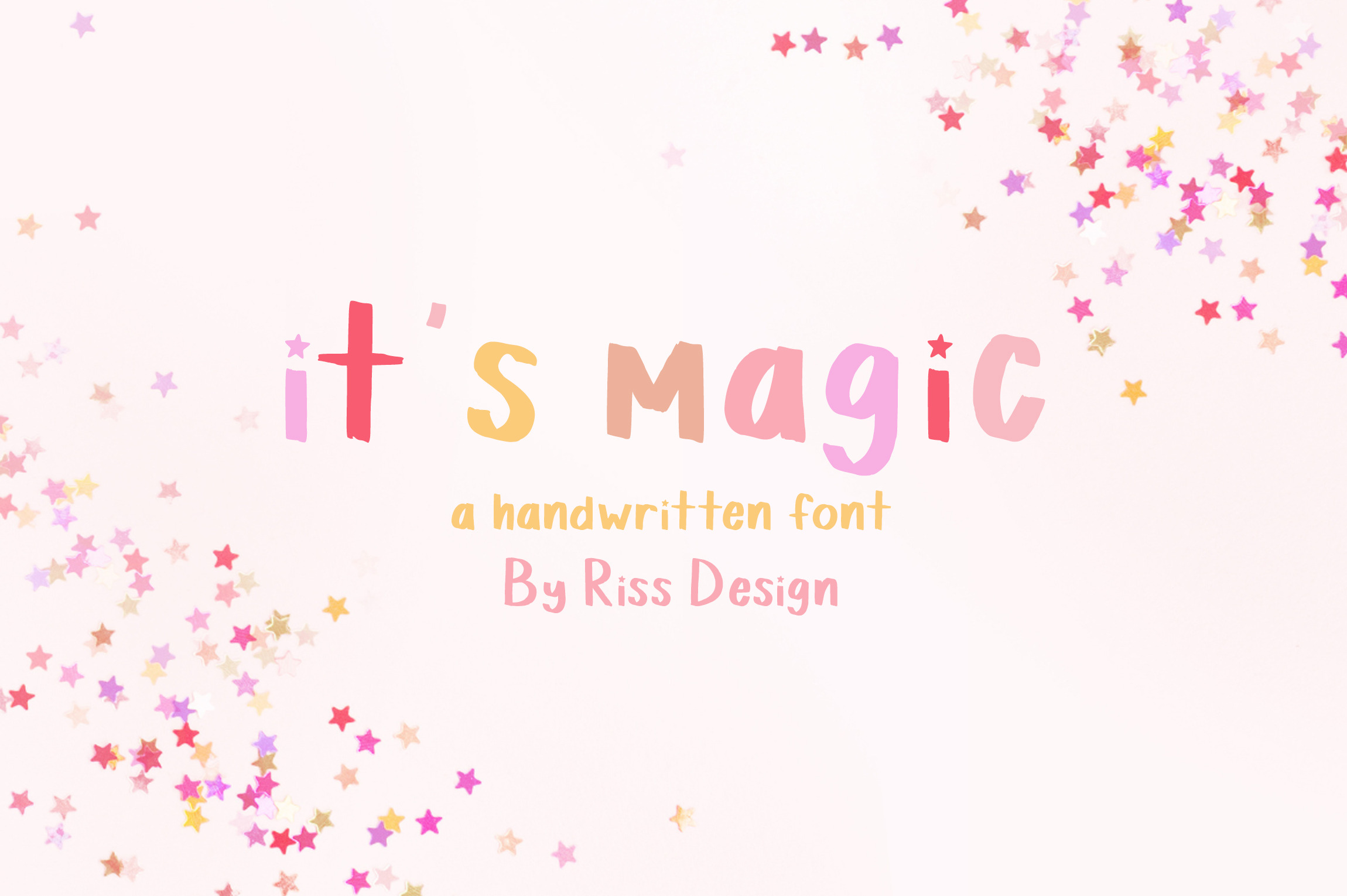
RD It's Magic - Handwritten Font
A fun, new hand lettered monoline font by Riss Design. Perfect for use on your websites and logos. A must have for my fellow star lovers!